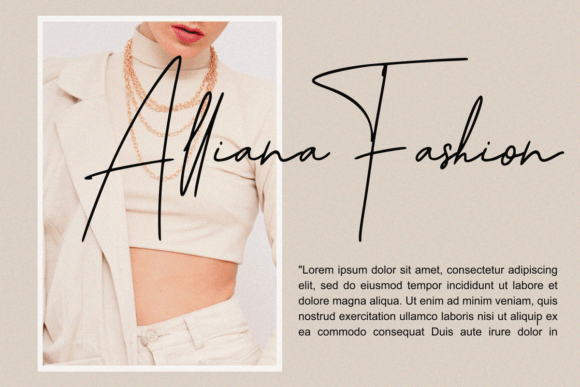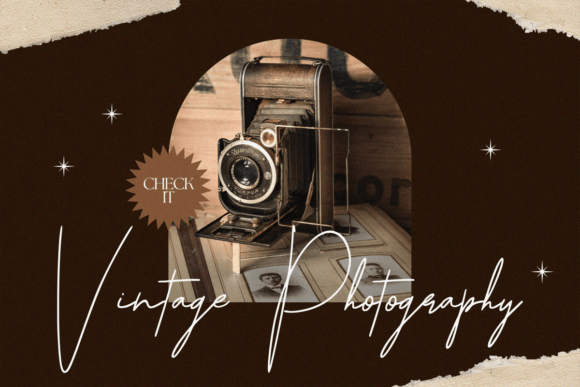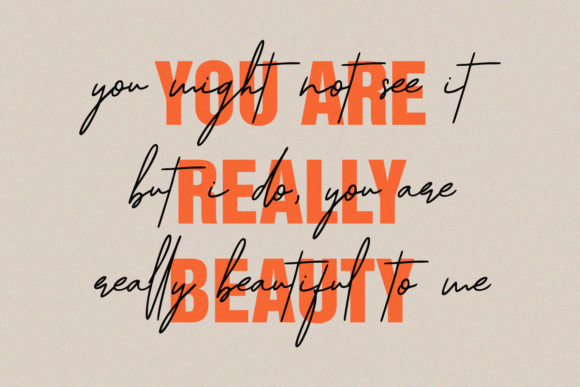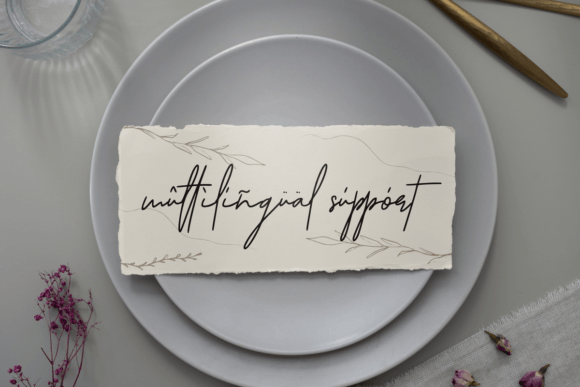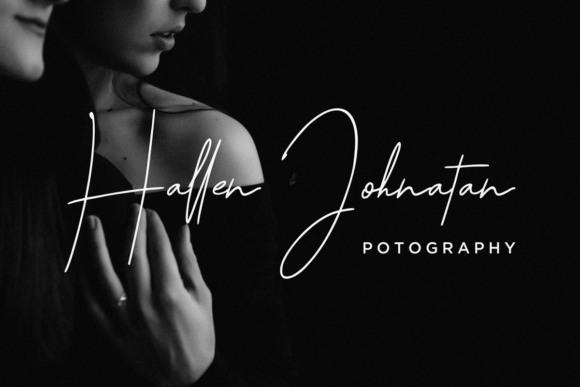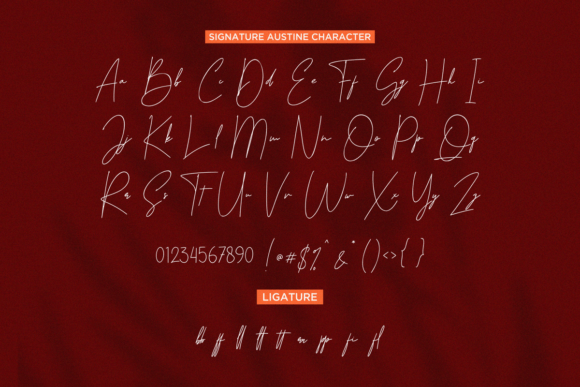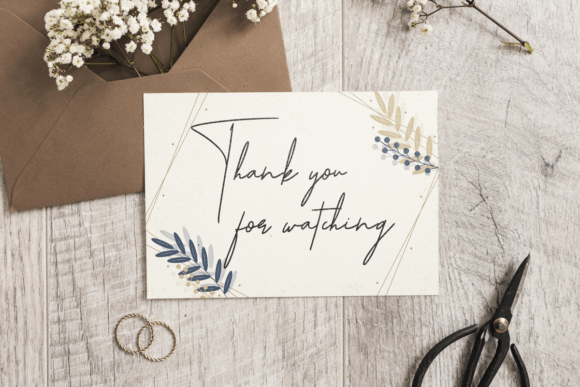
Signature Austine Font
About Signature Austine Font
Introducing Signature Austine, a monoline signature font designed to add a touch of elegance and sophistication to your creative projects. This font is perfect for a range of applications, including product packaging, branding projects, magazines, social media graphics, weddings, and more. Signature Austine is crafted to be expressive, making it an excellent choice for conveying words above various backgrounds.
The key features of Signature Austine include its monoline design, which imparts a consistent and smooth signature style. This design choice contributes to the font’s elegance and versatility across different applications.
For product packaging, Signature Austine adds a luxurious and personalized touch. The signature style enhances the branding, making it stand out with sophistication and creating a memorable impression.
In branding projects, Signature Austine is a valuable asset for creating a stylish and distinctive visual identity. The font’s monoline signature design conveys a sense of elegance, making it suitable for a wide range of brand aesthetics.
For magazines and social media graphics, Signature Austine brings a touch of sophistication and expressiveness. The font’s clean and consistent lines contribute to readability while maintaining an elegant appearance.
In wedding-related designs, Signature Austine adds a romantic and refined flair. The signature style creates a personalized touch, making it suitable for various elements such as invitations, thank-you cards, and more.
Signature Austine is versatile and adaptable, making it suitable for a variety of design contexts where an elegant and expressive signature font is desired.
In conclusion, Signature Austine is a monoline signature font perfect for product packaging, branding, magazines, social media, weddings, and more. Choose Signature Austine to infuse your designs with elegance and sophistication, creating visually appealing and personalized outcomes across a variety of creative applications.